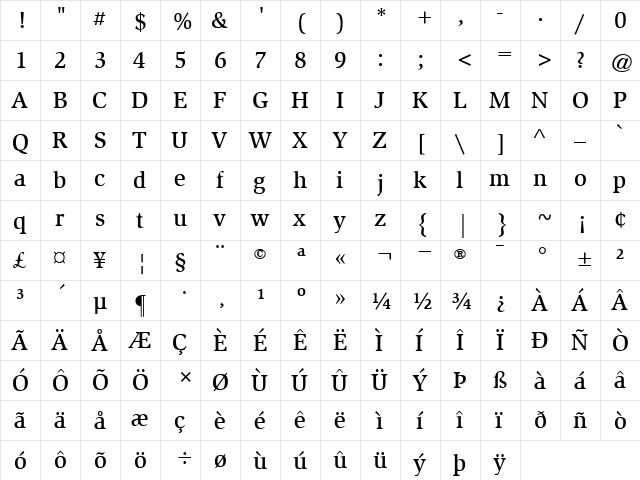
ITCSlimbach-Medium Medium
Design Context for ITCSlimbach-Medium Typeface
ITCSlimbach-Medium takes a measured approach to typography — its balanced proportions and neutral character make it a reliable workhorse for both digital and print work.
Pro Tip: Use ITCSlimbach-Medium in both headline and body roles to test its range before committing to a single application.